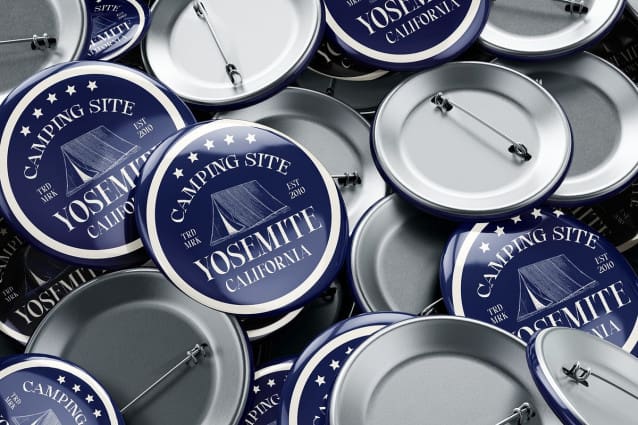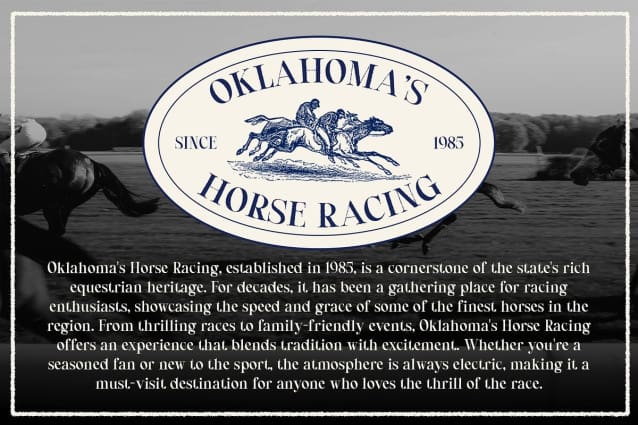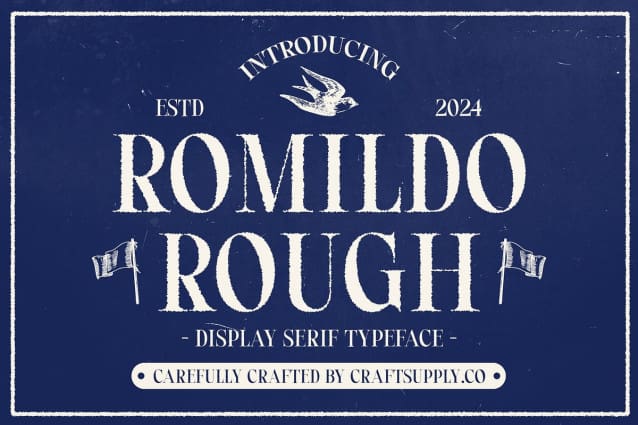
Romildo Rough Font
Romildo Rough Font is a classic 90s serif font that merges retro elegance with a striking rugged effect. Its bold serifs and vintage details capture the essence of nostalgia while introducing a distinctive textured finish. This blend of old-school charm and modern grit creates a memorable and impactful look.
Emphasizing Nostalgia with Unique Texture Designed to evoke strong memories of the 90s, Romildo Rough brings a bold and unique classic feel to any project. The rough texture adds character and depth, making it perfect for designs that require a captivating retro flair with a touch of ruggedness.
Ideal for Bold, Memorable Designs Whether used for branding, posters, or promotional materials, Romildo Rough excels in delivering a classic yet unforgettable aesthetic. Its combination of vintage elegance and rough texture ensures your designs stand out with a compelling and nostalgic touch.
Versatile for Retro-Inspired Projects Romildo Rough is versatile for a range of retro-inspired projects, enriching them with its unique mix of nostalgia and texture. Its bold serif design and rugged finish make it a perfect choice for any design needing a strong, memorable retro appeal.